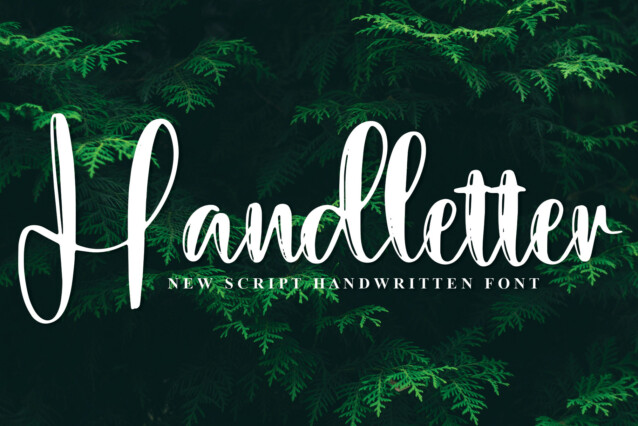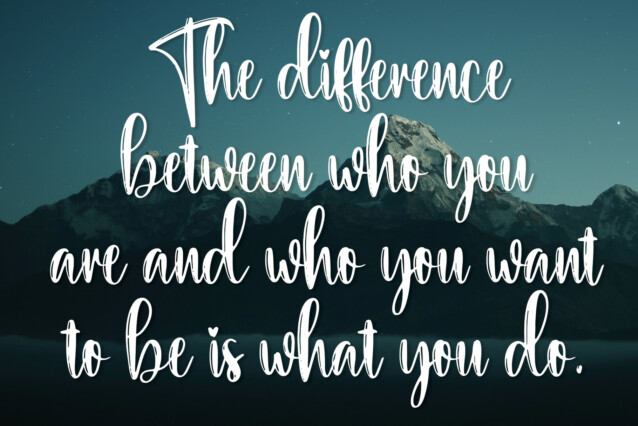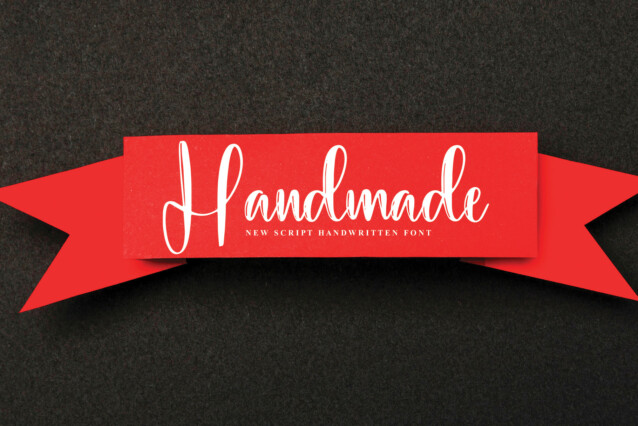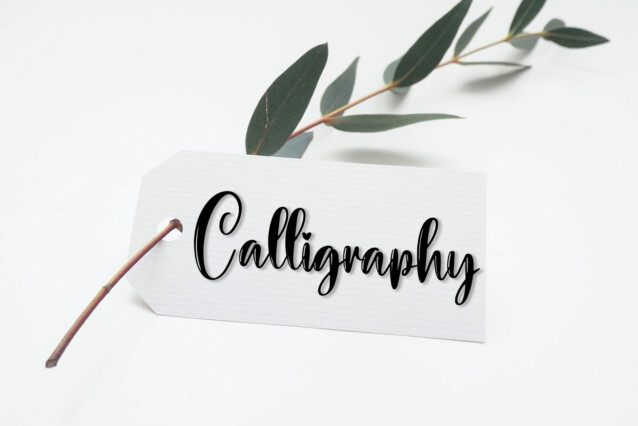
Underline Script Font
Underline Script Font is a creative handwritten font. Grab this calligraphy-style typeface and make quotes, invitations, cards, magazines, fashion, branding, product packaging, and more.